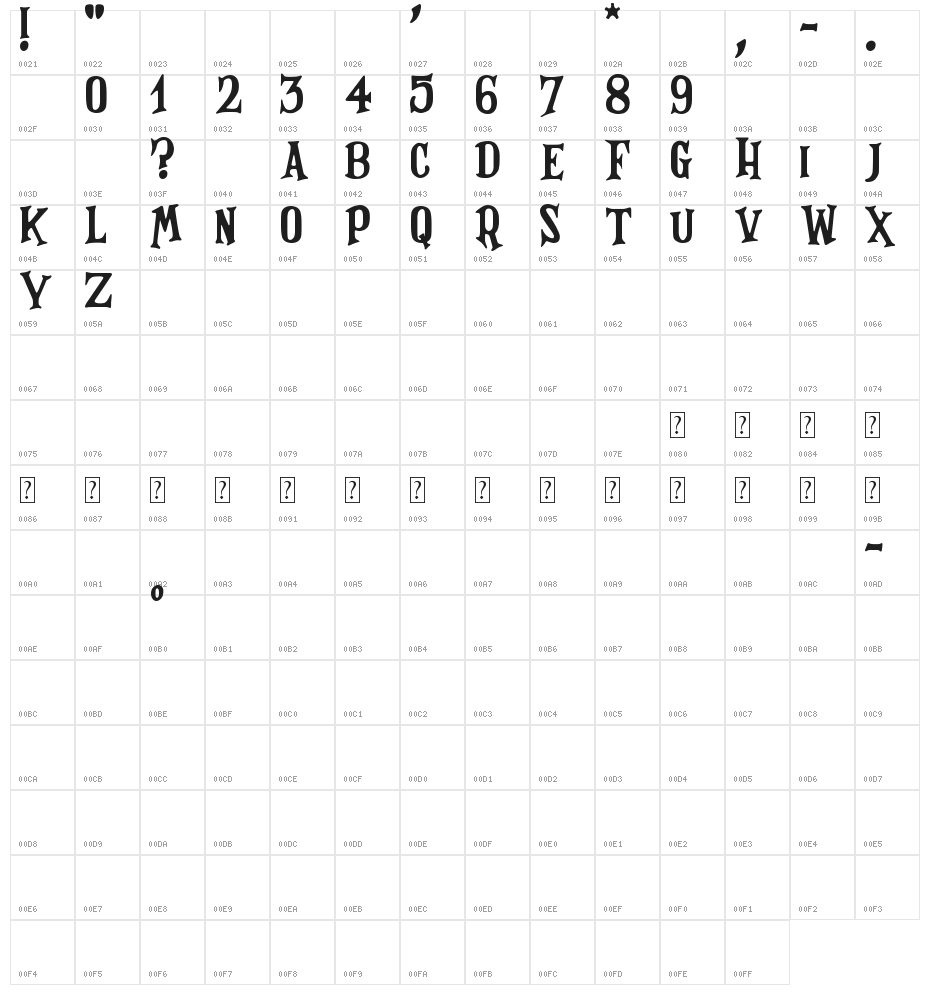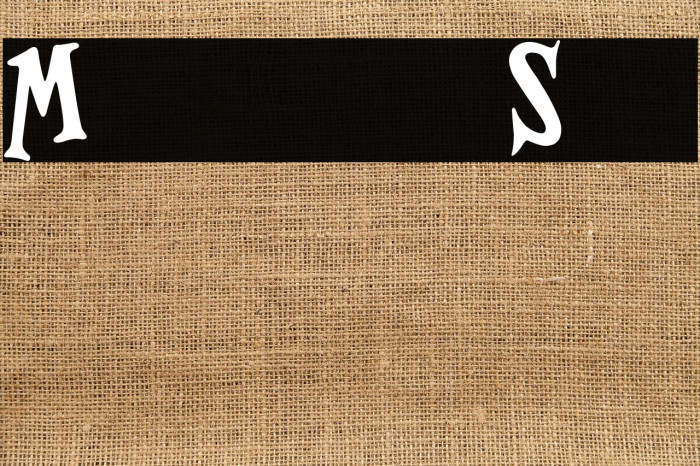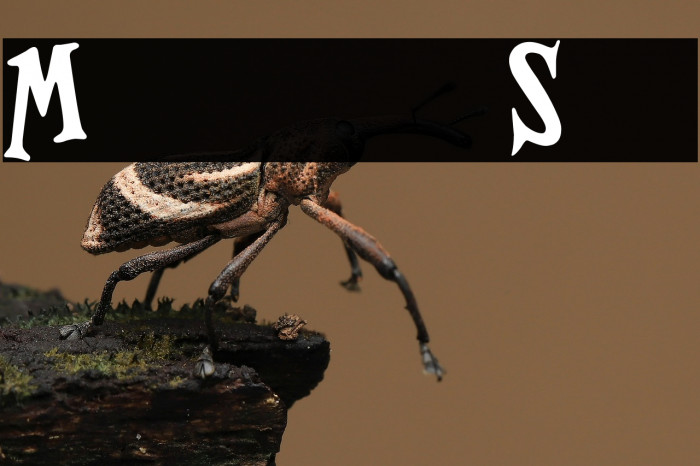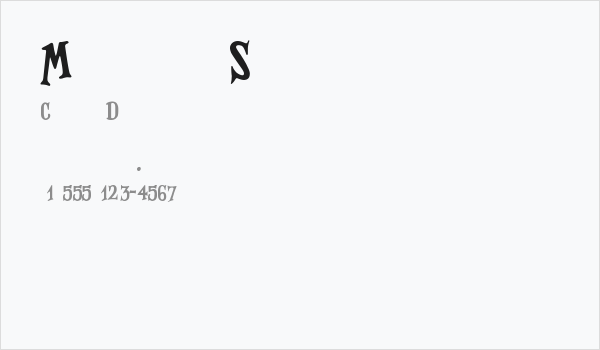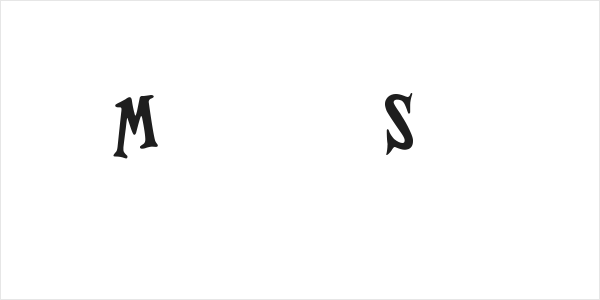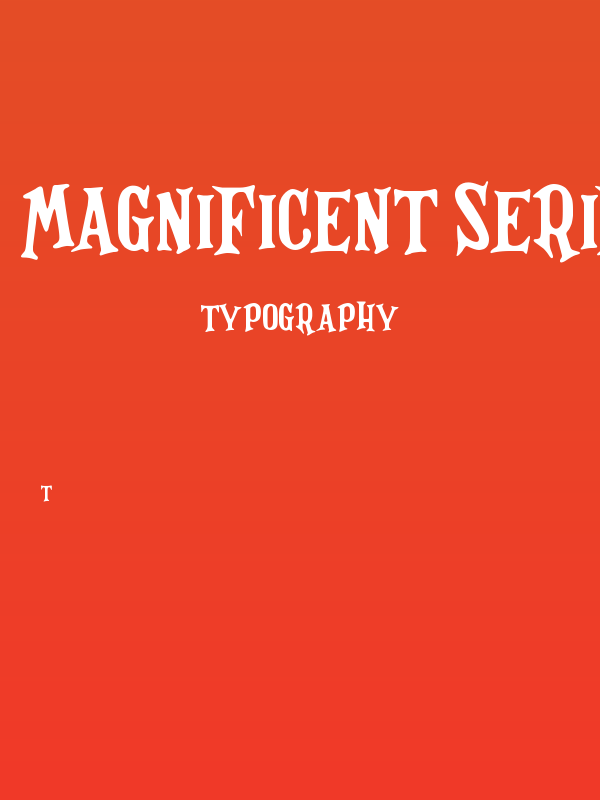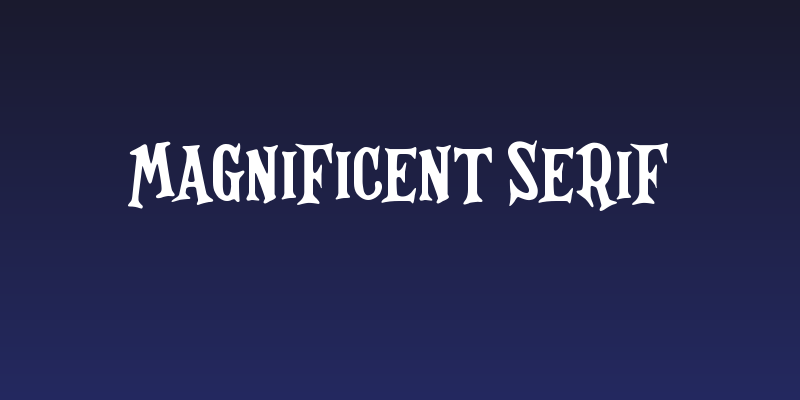
Magnificent Serif Font
Magnificent Serif Description
This font features a bold and dramatic serif style with a distinct vintage flair. The uppercase letters are characterized by their strong, angular serifs and slightly condensed forms, giving them a commanding presence. The numerals and special characters maintain this boldness, with unique flourishes that add a touch of elegance and sophistication. The overall design is reminiscent of classic typography, yet it incorporates modern elements that make it versatile for various design applications.
| Proposed Projects | Ideal for branding, headlines, posters, and any project requiring a strong, vintage aesthetic. |